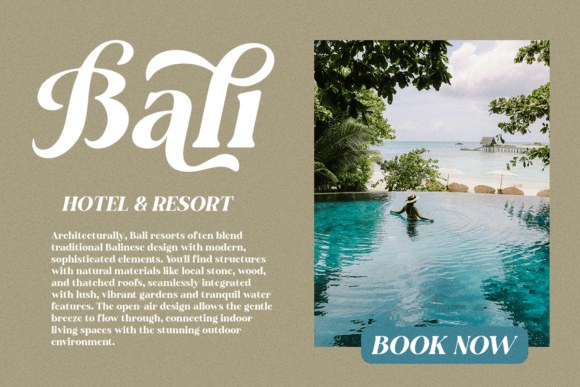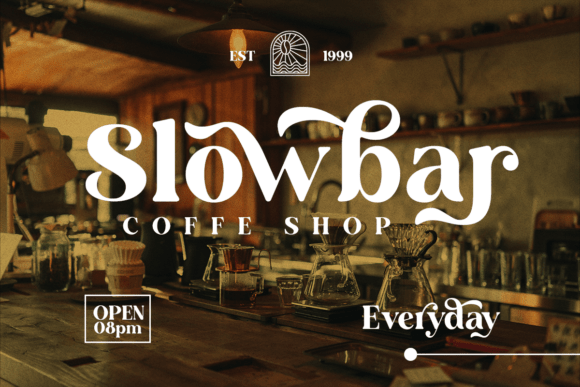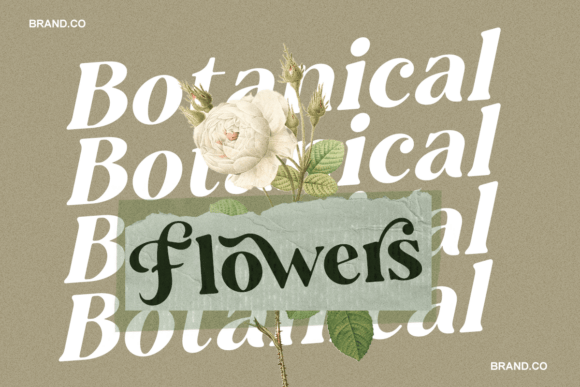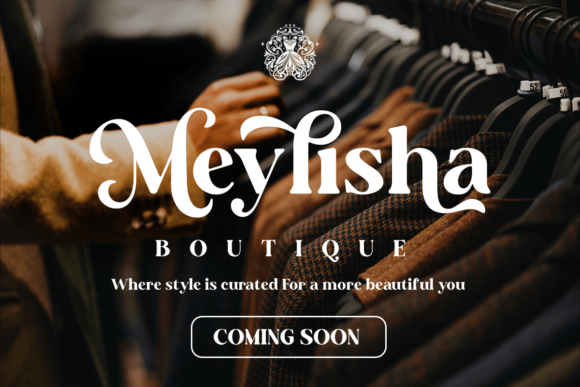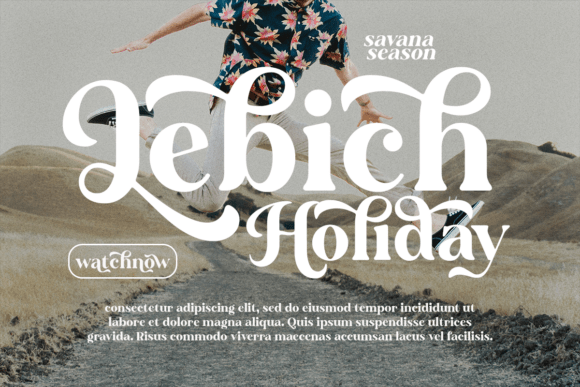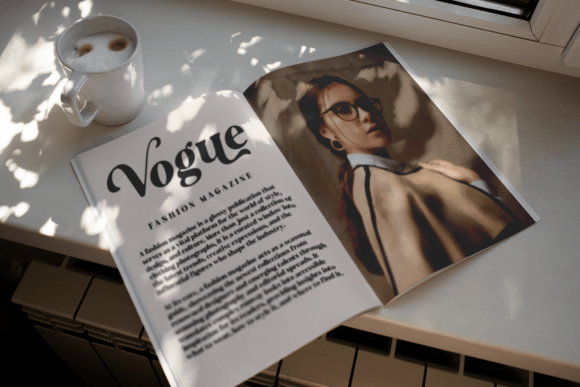
Introducing Ansilent Font: Elevate Your Designs with Modern Serif Elegance
In the world of typography, fonts play a crucial role in bringing creative projects to life. For designers and crafters seeking a modern serif font that exudes elegance and sophistication, Ansilent Font is an exceptional choice. This stunning font is designed to enhance any creative project, providing a striking presence with its alternates swashes, ideal for impactful headlines and logos.
What is Ansilent Font?
Ansilent is a modern serif font that boasts swashes alternates, carefully crafted to add a touch of nostalgia and elegance to designs. Its unique features make it perfectly suitable for creating a wide range of projects, from logos and packaging to editorial content and more. With Ansilent, you can add a level of sophistication and refinement to your designs, setting them apart from the rest.
Key Features of Ansilent Font
- Modern Serif Design: Ansilent features a sleek and contemporary serif design, making it perfect for designers seeking a fresh and modern look.
- Swashes Alternates: The font includes beautiful swashes alternates, adding a touch of elegance and sophistication to your designs.
- Impactful Headlines and Logos: Ansilent’s unique features make it ideal for creating striking headlines and logos that demand attention.
- Nostalgic yet Elegant: The font’s design strikes a perfect balance between nostalgia and elegance, making it suitable for a wide range of projects.
Ansilent Font is designed to cater to the needs of designers and crafters who seek a high-quality font that can elevate their creative projects. Whether you’re working on a logo, packaging, editorial content, or any other design project, Ansilent is an excellent choice. Its versatility and unique features make it an essential tool for anyone looking to add a touch of sophistication and elegance to their designs.
Use Cases for Ansilent Font
- Logo Design: Ansilent’s modern serif design and swashes alternates make it perfect for creating stunning logos that stand out.
- Packaging Design: The font’s elegant features make it suitable for packaging design, adding a touch of sophistication to product labels and branding.
- Editorial Design: Ansilent’s unique features make it ideal for editorial design, including magazines, newspapers, and online publications.
- Branding and Identity: The font’s nostalgic yet elegant design makes it perfect for creating a strong brand identity.
Why Choose Ansilent Font?
With so many fonts available, why choose Ansilent? Here are a few compelling reasons:
- Unique Design: Ansilent’s modern serif design and swashes alternates make it a standout font that can elevate your designs.
- Versatility: The font’s versatility makes it suitable for a wide range of projects, from logos and packaging to editorial content and more.
- Elegance and Sophistication: Ansilent’s design exudes elegance and sophistication, making it perfect for designers seeking a high-end look.
In conclusion, Ansilent Font is an exceptional choice for designers and crafters seeking a modern serif font with swashes alternates. Its unique features, versatility, and elegance make it perfect for a wide range of projects, from logos and packaging to editorial content and more. With Ansilent, you can add a touch of sophistication and refinement to your designs, setting them apart from the rest. So why wait? Explore the possibilities of Ansilent Font today and elevate your designs to new heights!